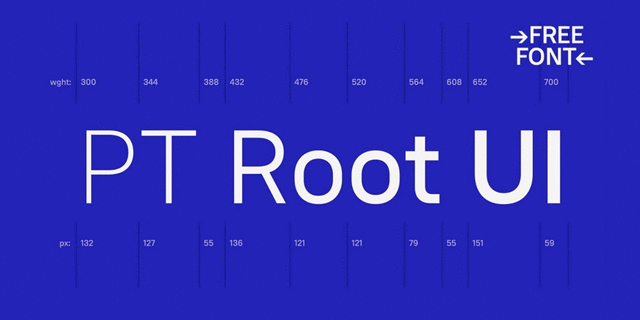
PT Root UI (5 fonts)
About PT Root UI is a special part of the PT Root typeface family. It consists of four styles of normal proportions, from Light to Bold, intended for screen reading, interfaces, websites, as well as wayfinding systems. PT Root UI is a modern uniwidth sans serif whose individual character widths are constant across all weights. This is especially convenient for headers, menu bars and interface elements. It has a broad language support, including the Latin Extended and Cyrillic (including Cyrillic Asian), different sets of figures and currency signs, fractions and indices, as well as a number of wayfinding signs and alternative forms. PT Root UI was designed by Vitaly Kuzmin and released by Paratype in 2018. The typeface is distributed free of charge with SIL Open Font License (OFL).
Features of font family PT Root UIThe hit of the decade:
Associations for font family PT Root UITypeface personality and character:
business, strict, clean, elementary, minimalistic, independent, responsible, west, accurate, flat, convincing, rectangular, stable, static, simple, neutral, modern, globalized, globalistic, monotone, logical, pragmatic, practical, solid, laconic, available, serious, iron, steel, reliable, self-assured, automatic, artificial, cold, machine, engineering, industrial, technogenic, standard, urban, cutting, crisp, sharp, schematic, computer, urbanistic, mandatory, clever, easy, chilly, thin, clear, important, architectural, strong, workman, motivating, railway
tool, chemistry, mathematics, urban studies, industry, equipment, code, scheme, constructor, engineer, automation, ГОСТ, city, navigation, science, design, android, IT, IT specialist, computer, electronics, programming, technology, hardware, coworking, architecture, x-ray, water, device, innovations, sky, machine tool, packing, power station, energy industry, mechanical engineering, factory, car, motor, press, helmet, uniform, railway carriage, construction, building, robot, space, sci-fi, gadget, fuel, architect, astronomy, railway, workman Typeface associated with age: